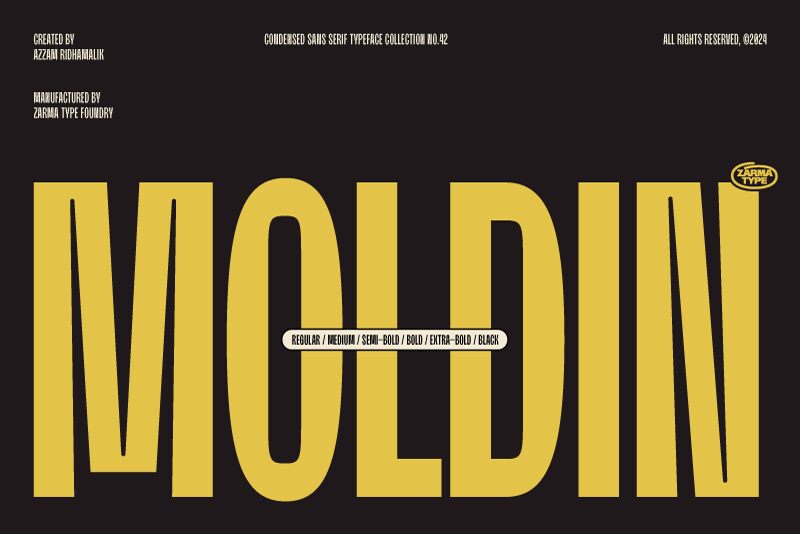
Moldin font by Zarma Type Foundry is a free sans serif typeface distinguished by a clean and modern minimalistic design. It is condensed to 60% its original size, which gives it an impactful visual presence. This display font offers a strong personality whether used in short texts or combined for longer content. It’s fully equipped with numbers and essential symbols, and ensures exceptional readability.
The solid design and compact side of this font allows it to be great for newspapers, headlines, logotypes, company names, packaging design, among many other designs. Its athletic look delivers an optic punch that is decent enough even for less typical designs like posters and advertising.